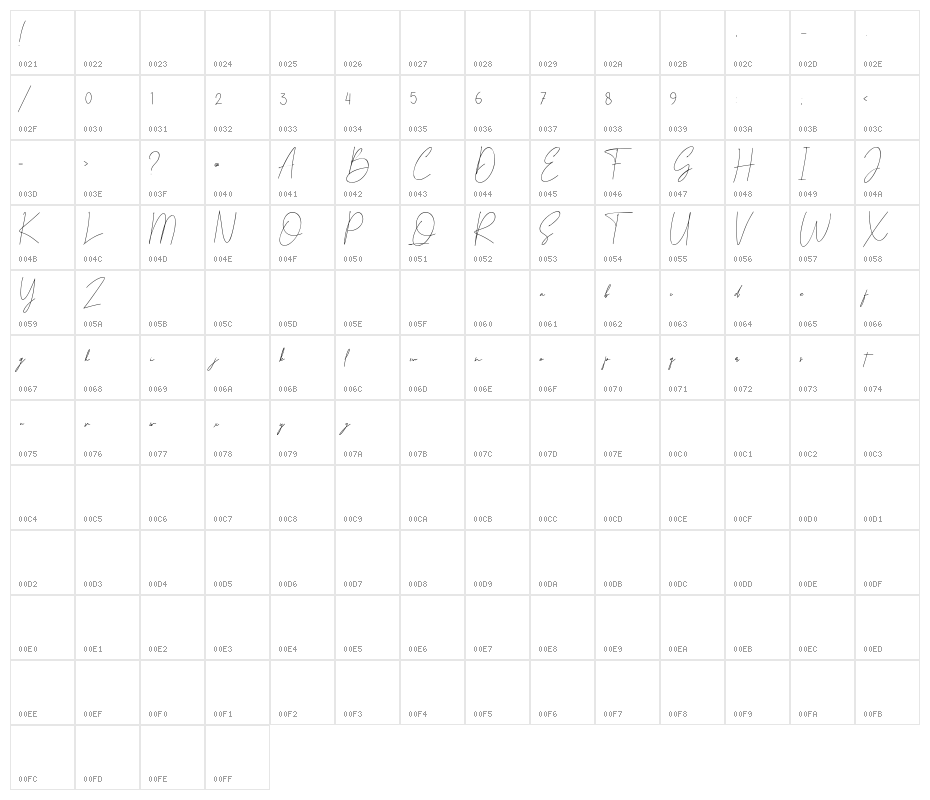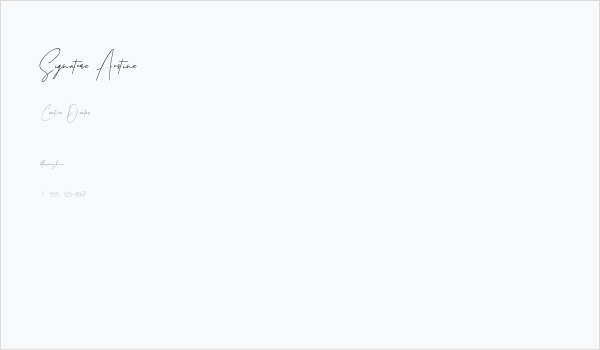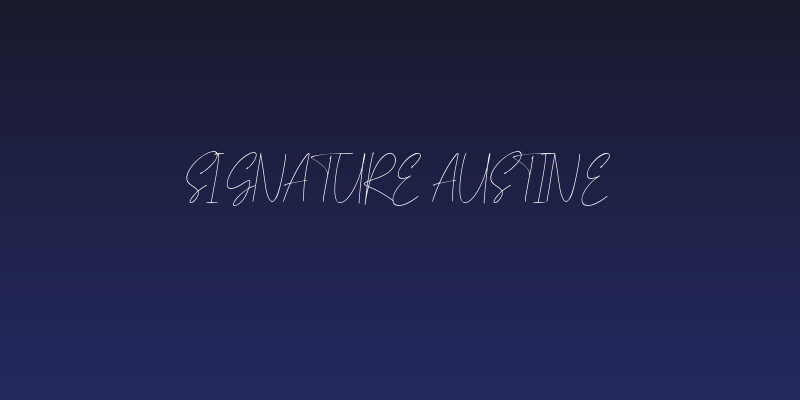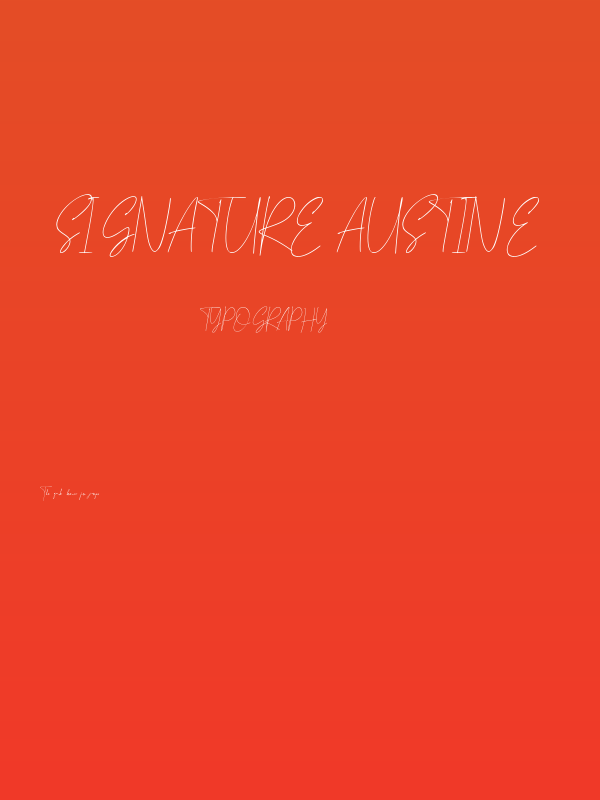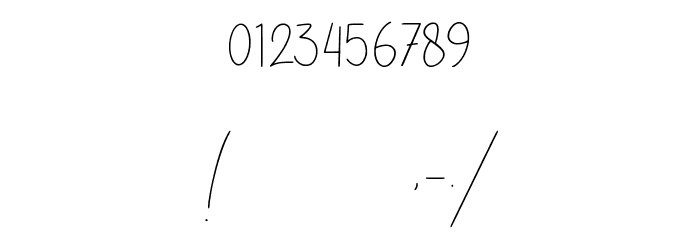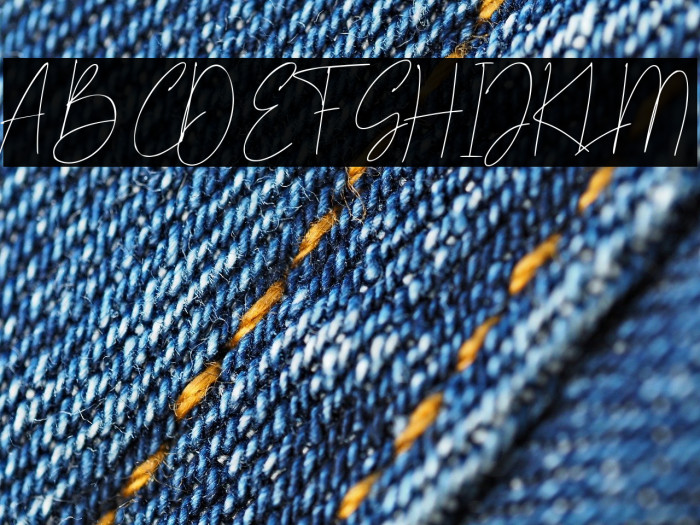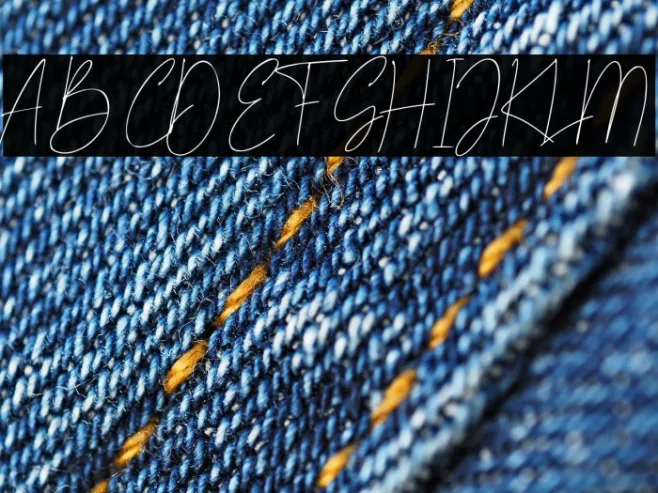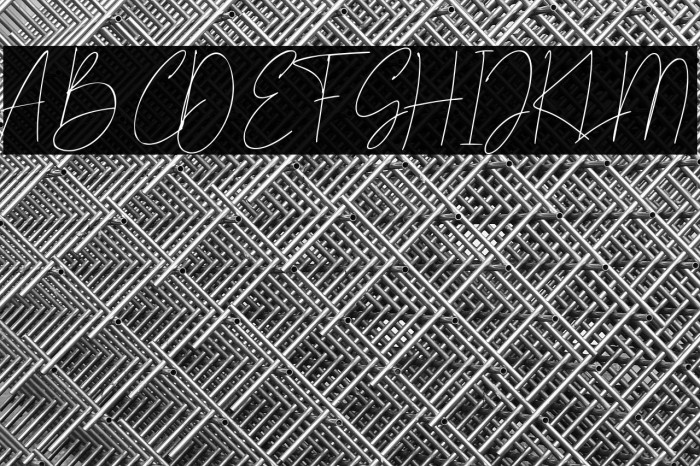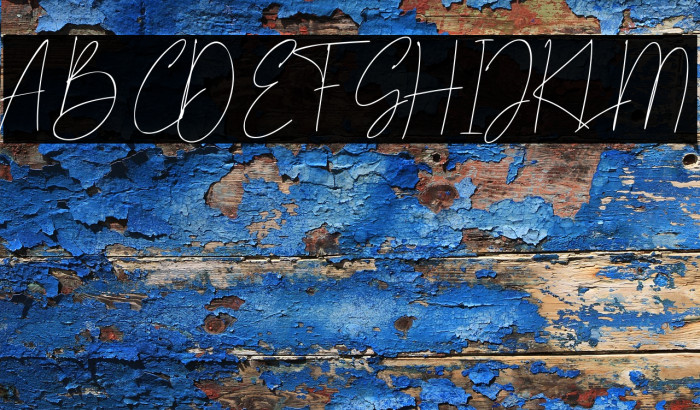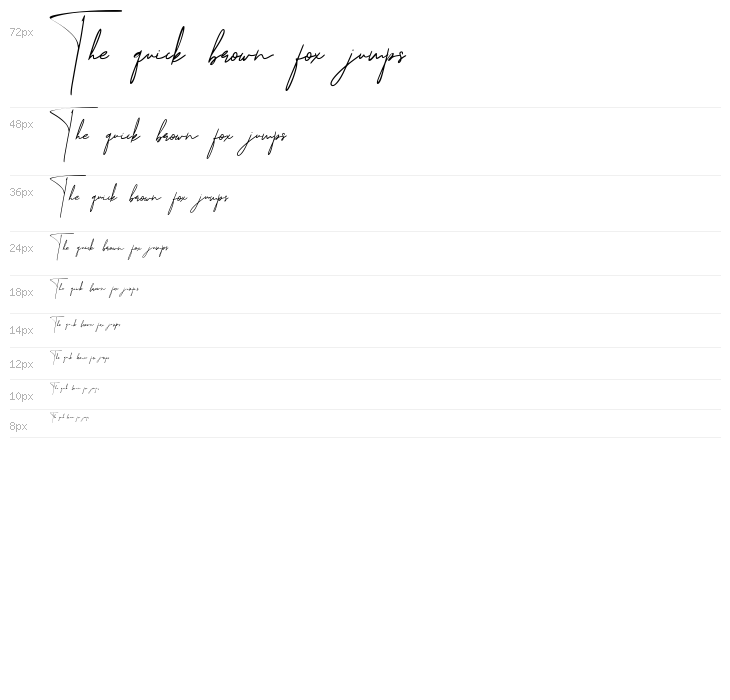
Signature Austine Font
Signature Austine Description
This font exudes a casual elegance with its flowing, handwritten style. The letters are elongated and slightly slanted, giving a sense of movement and fluidity. The uppercase characters are bold and prominent, while the lowercase letters maintain a delicate and graceful appearance. The numbers are consistent with the overall style, maintaining the same thin, elegant strokes. Special characters are seamlessly integrated, adding versatility to the font. The overall impression is one of sophistication and modernity, making it suitable for a variety of creative projects.